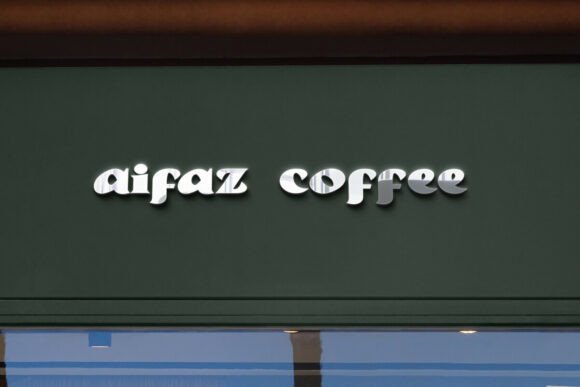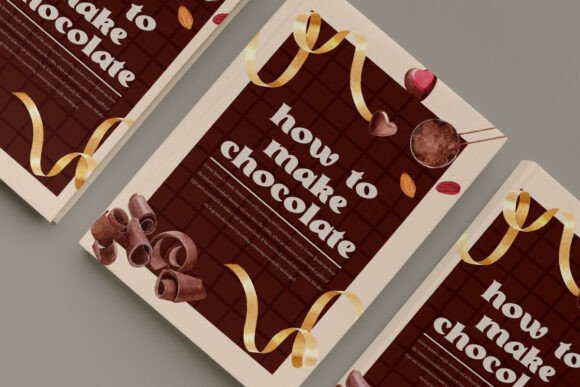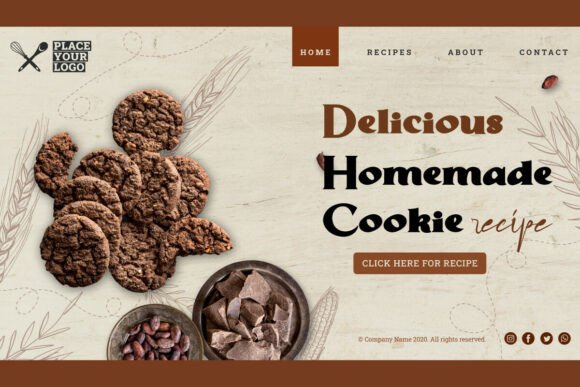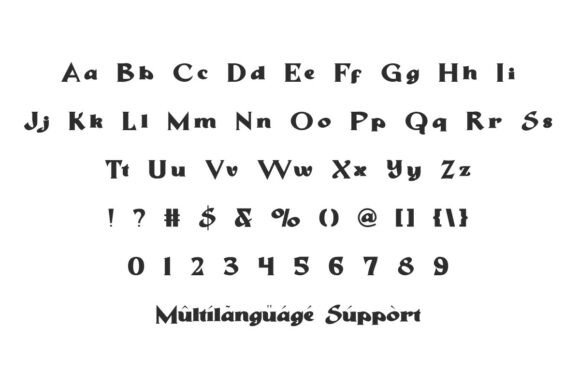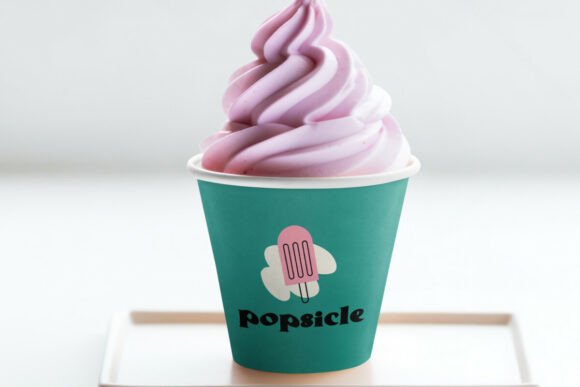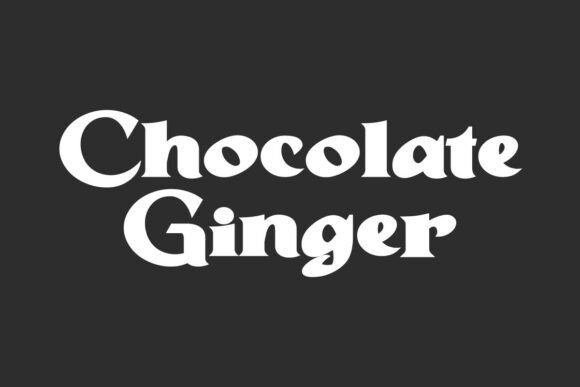
Introducing Chocolate Ginger Font: A Deliciously Retro Display Typeface
Are you looking for a font that can add a touch of nostalgia and warmth to your design projects? Look no further than Chocolate Ginger Font, a deliciously memorable display typeface that’s perfect for food and beverage branding, packaging design, throwback merchandise, and impactful headlines.
Inspired by 1970s Typography
Chocolate Ginger Font draws inspiration from the groovy, chunky forms of 1970s typography. Its heavy, voluptuous curves and soft serifs give it an undeniable retro warmth and a bold, friendly personality. The font’s chunky, rounded shapes evoke a sense of comfort and nostalgia, making it perfect for designs that need a strong dose of retro charm.
Perfect for Food and Beverage Branding
Food and beverage branding often requires a font that’s both playful and appetizing. Chocolate Ginger Font fits the bill perfectly. Its sweet, comforting aesthetic is sure to make your brand stand out on store shelves and menus. Whether you’re designing a logo for a bakery, cafe, or restaurant, this font is sure to add a touch of warmth and personality to your brand.
Packaging Design and Throwback Merchandise
Chocolate Ginger Font is also perfect for packaging design and throwback merchandise. Its retro vibe and bold, friendly personality make it a great fit for product packaging, labels, and promotional materials. Use it to add a touch of nostalgia to your product packaging or to create eye-catching throwback merchandise that will appeal to customers of all ages.
Impactful Headlines and Display Text
Need a font that can make a statement? Chocolate Ginger Font is perfect for impactful headlines and display text. Its heavy, voluptuous curves and soft serifs make it a great fit for titles, headings, and other display text. Use it to add a touch of drama and personality to your designs, and watch as your headlines grab attention and draw in readers.
Key Features of Chocolate Ginger Font
- Groovy, chunky forms: Inspired by 1970s typography, Chocolate Ginger Font features chunky, rounded shapes that evoke a sense of nostalgia and comfort.
- Soft serifs: The font’s soft serifs add a touch of warmth and personality to your designs.
- Heavy, voluptuous curves: Chocolate Ginger Font’s heavy, voluptuous curves make it perfect for display text and headlines.
- Retro warmth: The font’s retro vibe and bold, friendly personality make it perfect for designs that need a strong dose of nostalgic charm.
Tips for Using Chocolate Ginger Font
Here are a few tips for using Chocolate Ginger Font in your designs:
- Use it for headlines and display text: Chocolate Ginger Font is perfect for titles, headings, and other display text.
- Pair it with a simple font: For body text, pair Chocolate Ginger Font with a simple, easy-to-read font to create visual contrast.
- Experiment with colors: Chocolate Ginger Font looks great in a variety of colors, from bright and bold to soft and pastel.
- Have fun with it: Don’t be afraid to get creative and have fun with Chocolate Ginger Font. Its playful, nostalgic vibe is perfect for designs that need a touch of personality.
Chocolate Ginger Font is a deliciously memorable display typeface that’s perfect for food and beverage branding, packaging design, throwback merchandise, and impactful headlines. Its groovy, chunky forms and soft serifs give it an undeniable retro warmth and a bold, friendly personality. Whether you’re a designer, crafter, or DIY enthusiast, Chocolate Ginger Font is sure to add a touch of nostalgia and personality to your designs.